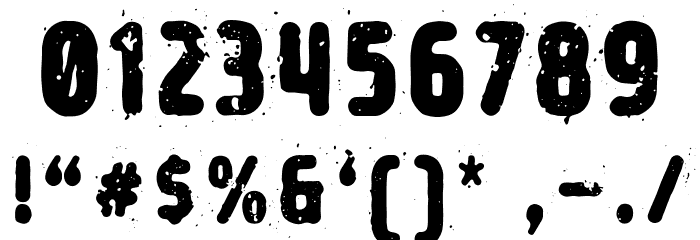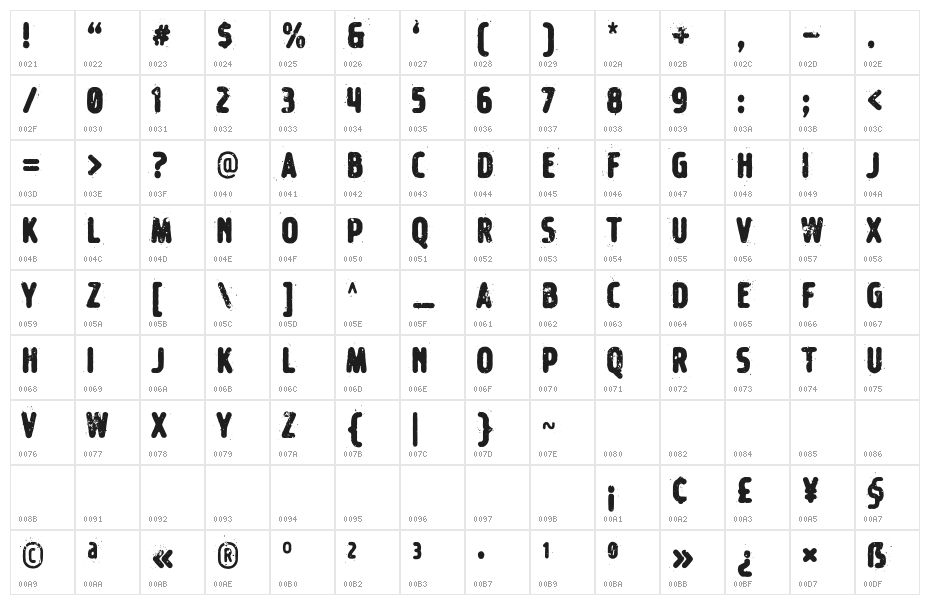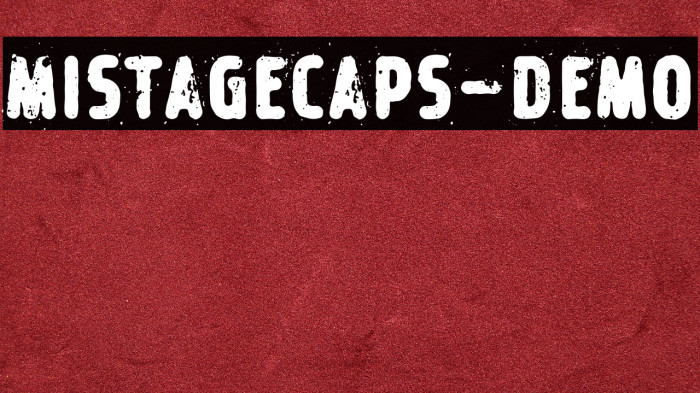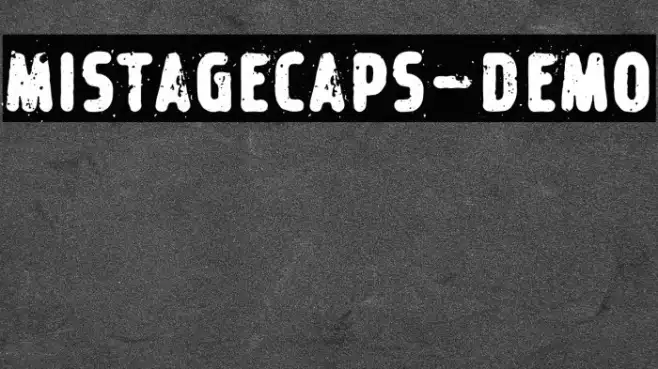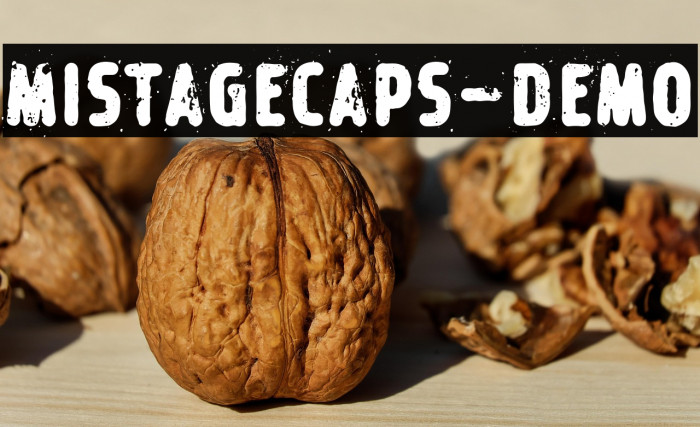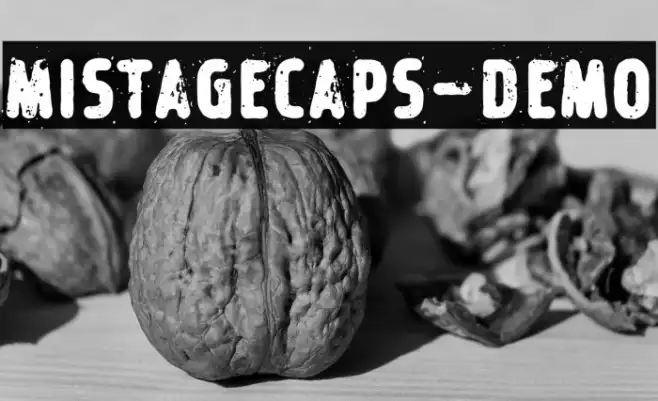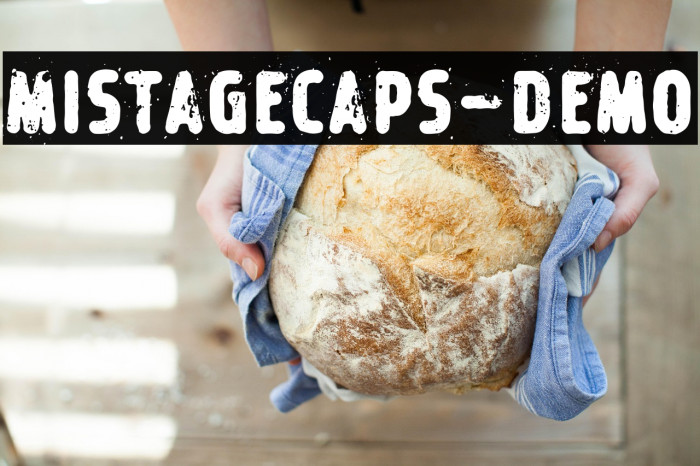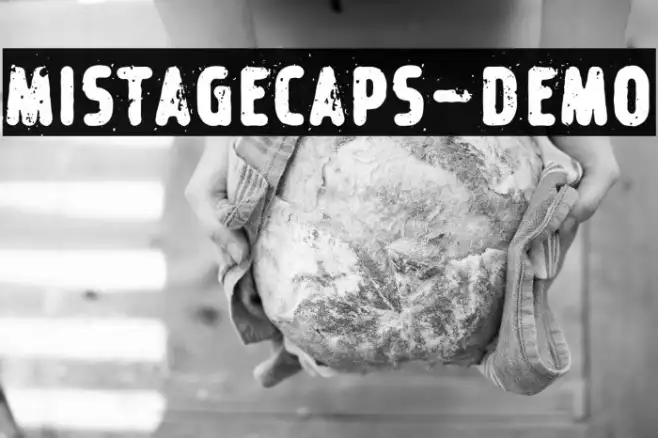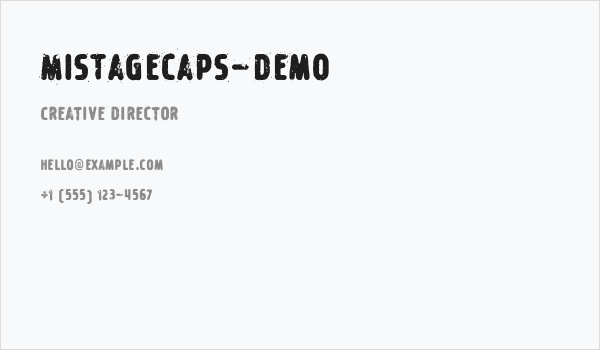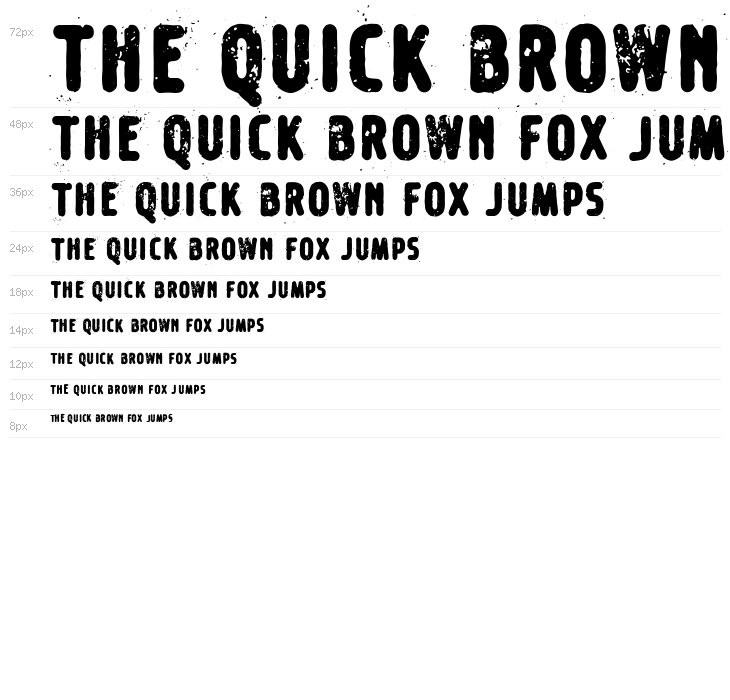
MistageCaps-Demo Font
MistageCaps-Demo Description
This font features a bold, distressed style with a rough, textured appearance that gives it a vintage and rugged feel. The characters are uniformly bold with a consistent width, creating a strong visual impact. The texture within each letter adds a unique, worn-out effect, making it ideal for projects that require a rustic or grunge aesthetic. The uppercase and lowercase letters maintain a consistent style, while the numbers and special characters complement the overall design. This font is well-suited for creative projects that aim to convey a sense of authenticity and character.
| Proposed Projects | Ideal for posters, album covers, branding, and any design needing a rustic or grunge aesthetic. |